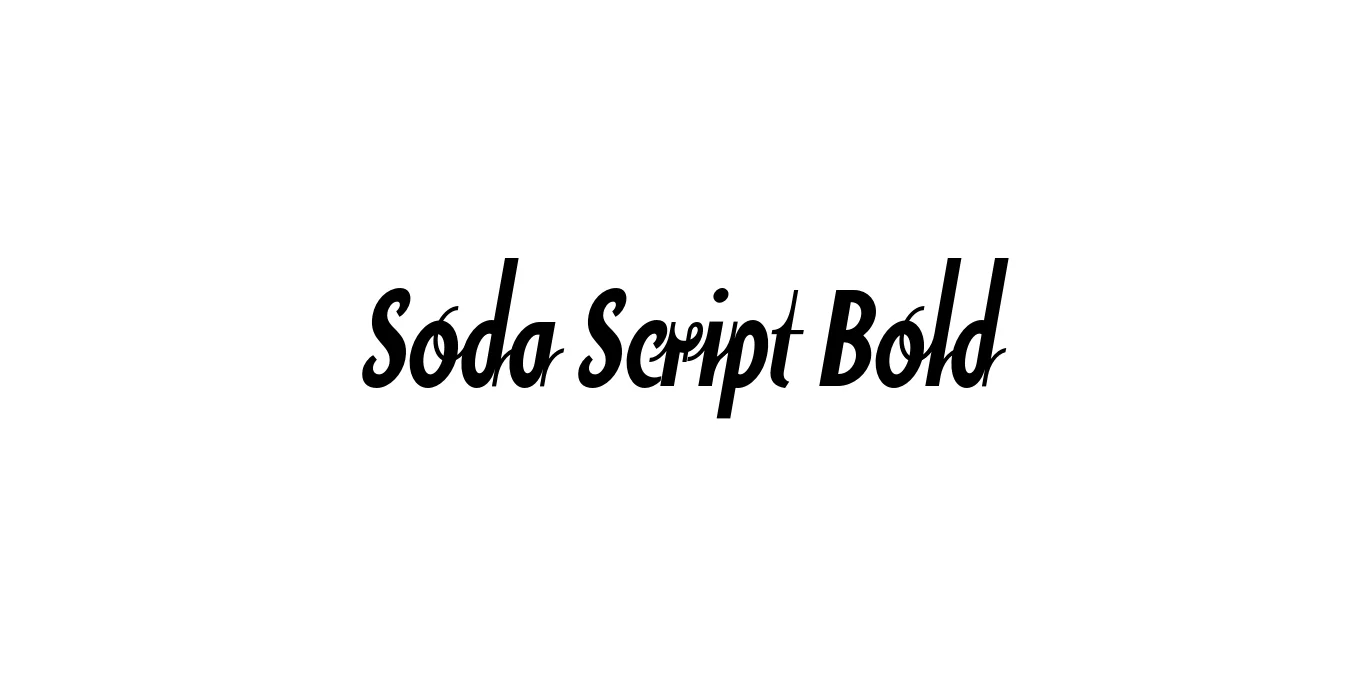
Soda Script Bold
Designed by Zuzana Licko
Soda Script Bold was designed by Zuzana Licko in 1995 for the Emigre type foundry. This typeface was inspired by the casual, fluid lettering found on vintage food packaging and retail signage from the mid-20th century. The bold weight highlights its high-contrast strokes and rounded, friendly terminals, making it an excellent choice for display typography that requires a sense of nostalgia, warmth, and hand-crafted charm.
This script font captures the essence of casual elegance while maintaining a sturdy structure that translates well to modern digital environments. Its rhythmic flow and distinct personality have made it a favorite for branding, packaging, and advertising projects that aim to evoke a classic "diner-style" or retro aesthetic. Despite its roots in vintage script styles, Soda Script Bold remains versatile enough for a wide range of contemporary creative applications.
Soda Script Bold Best Uses
Perfect for creating a friendly, approachable brand identity with a retro feel.
Ideal for food and beverage labels that require a hand-crafted, artisan look.
Works exceptionally well for bold, expressive titles on posters, flyers, and magazine covers.
Great for high-impact graphics and promotional materials that need to catch the eye.